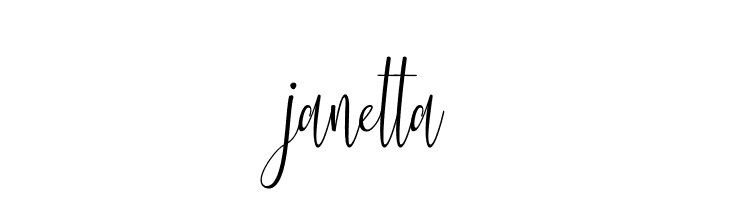
An elegant, flowing script font with tall, slender letterforms and graceful curves.
A flowing, handwritten font with a casual and elegant style.
A playful and elegant script font with a handwritten style.
A fluid, elegant handwritten font with thin, elongated strokes.
A lively, expressive handwritten font with fluid, dynamic strokes.
A playful, handwritten font with a whimsical and dynamic style.
A dynamic script font with fluid strokes and a hand-drawn appearance.